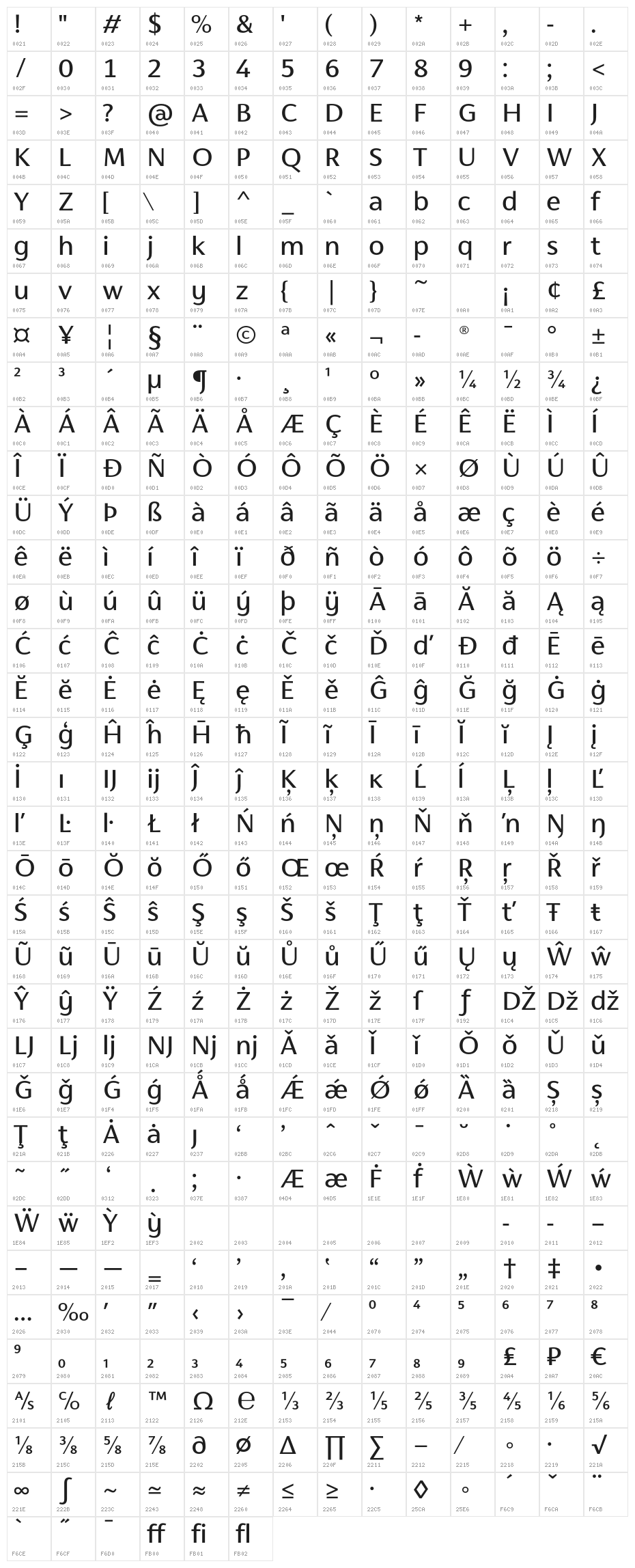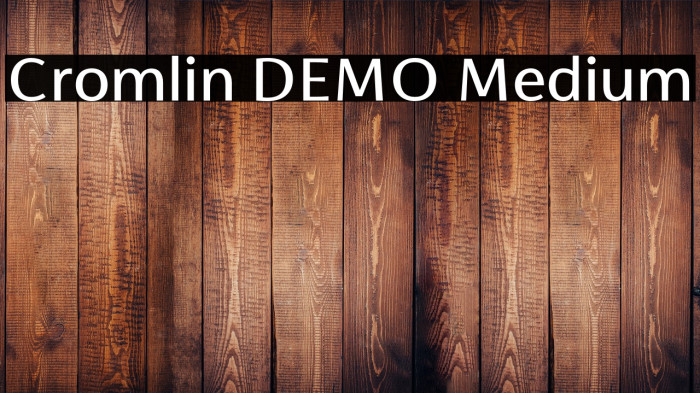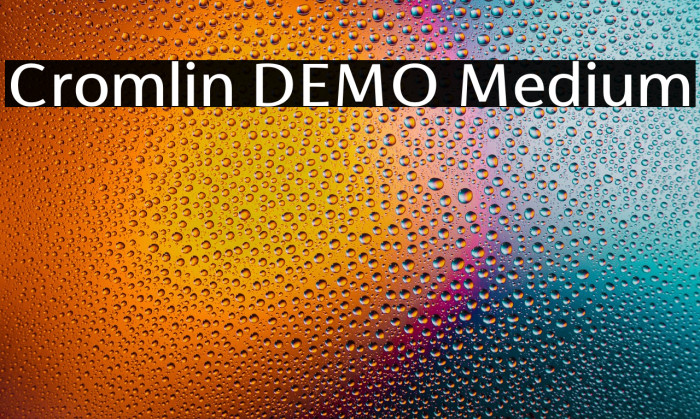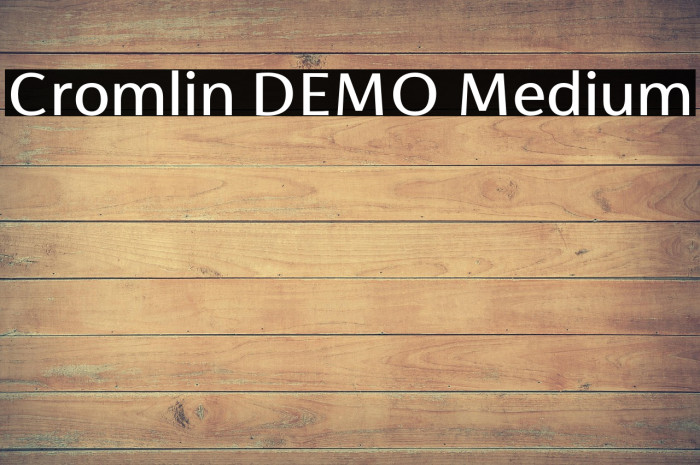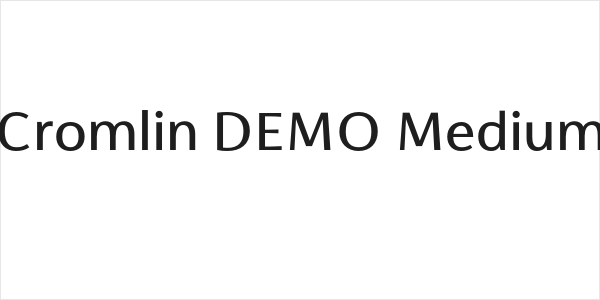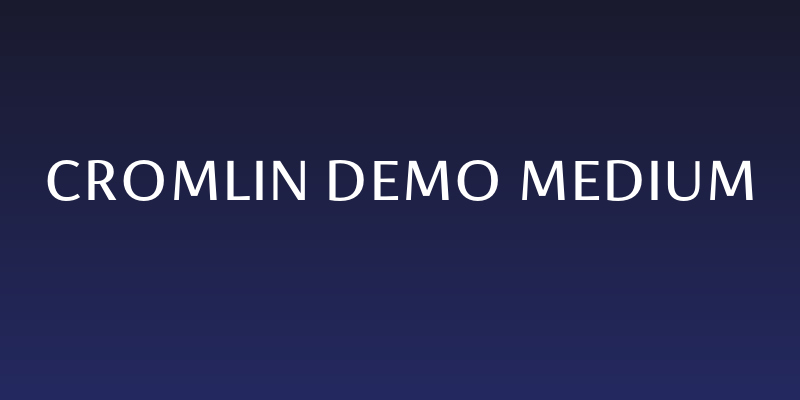
Cromlin DEMO Medium Font
Cromlin DEMO Medium Description
This font features a clean and modern sans-serif design, characterized by its uniform stroke width and geometric shapes. The uppercase letters are bold and assertive, while the lowercase letters maintain a consistent and harmonious flow. The numerals are clear and easy to read, making them suitable for a variety of applications. Special characters are well-defined, adding versatility to the font's use. Overall, this font exudes a contemporary and professional aesthetic, making it ideal for both digital and print media.